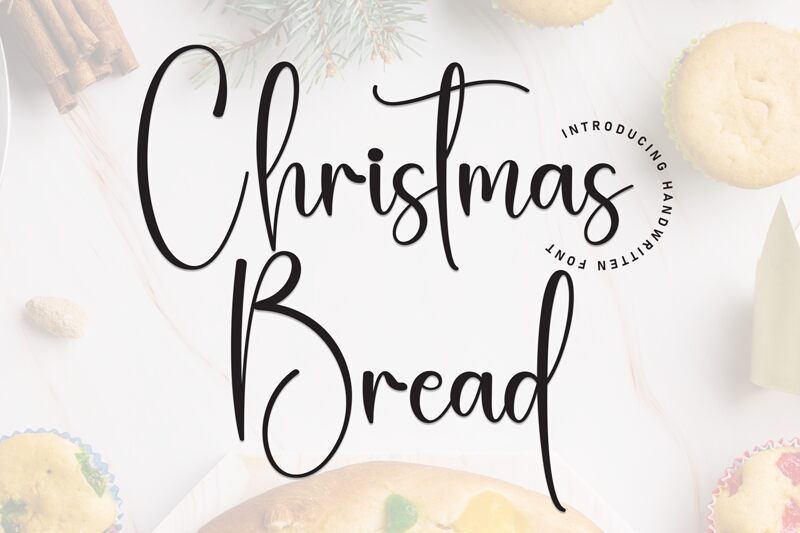
Christmas Bread
Christmas Bread font by Scratchones is an elegant and flowing handwritten font that beautifully balances modern elegance with casual sophistication. Its script style captures the delicate and artistic beauty that can elevate any design, making it visually captivating and unique.
This free handwritten font is suitable for a range of uses, including wedding invitations, branding projects, book covers, photography posters, social media posts, postcards, flyers ideas, merchandise designs for clothing and stationery. Give your creative ideas an instant upgrade with Christmas Bread typeface!